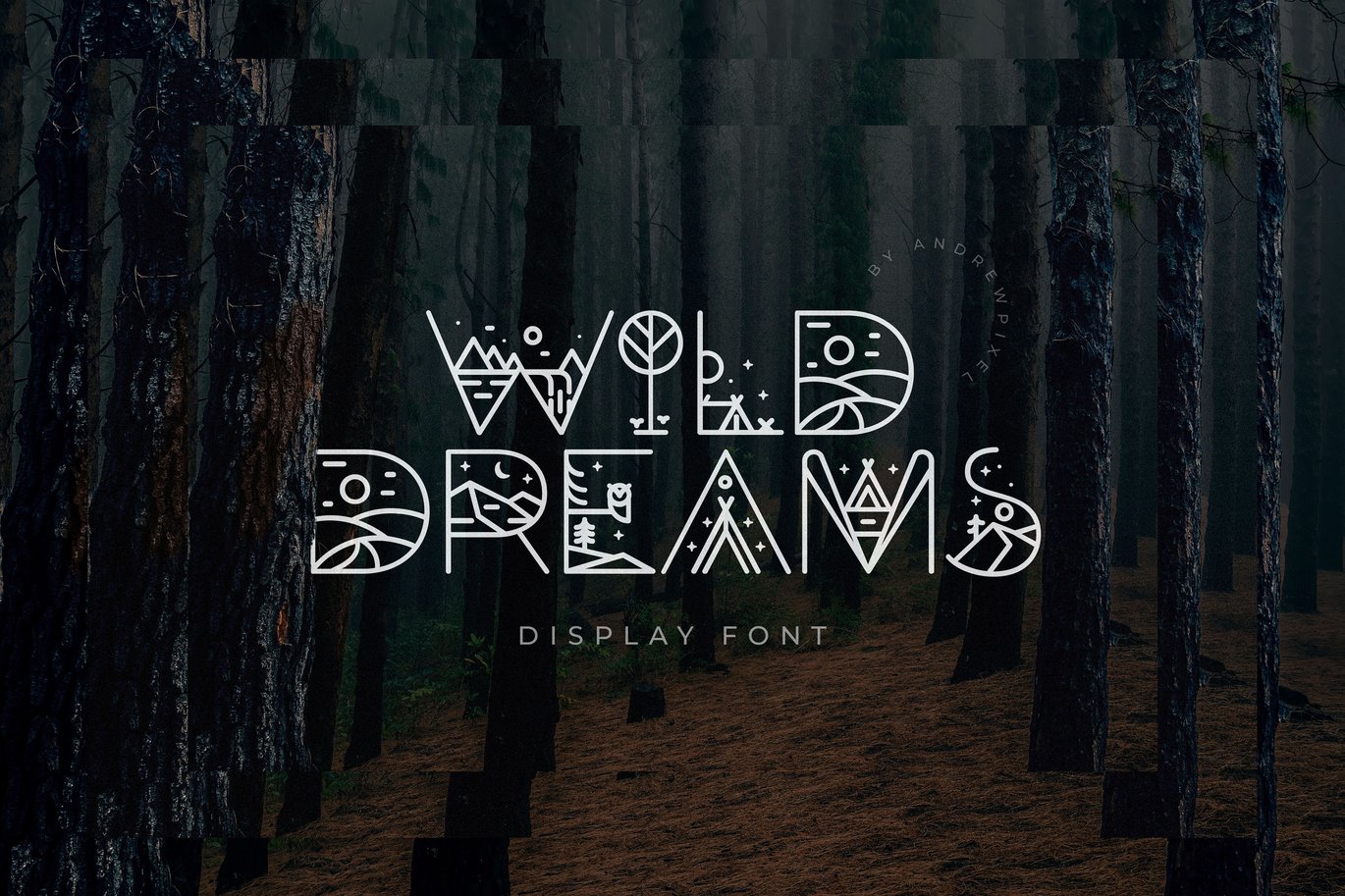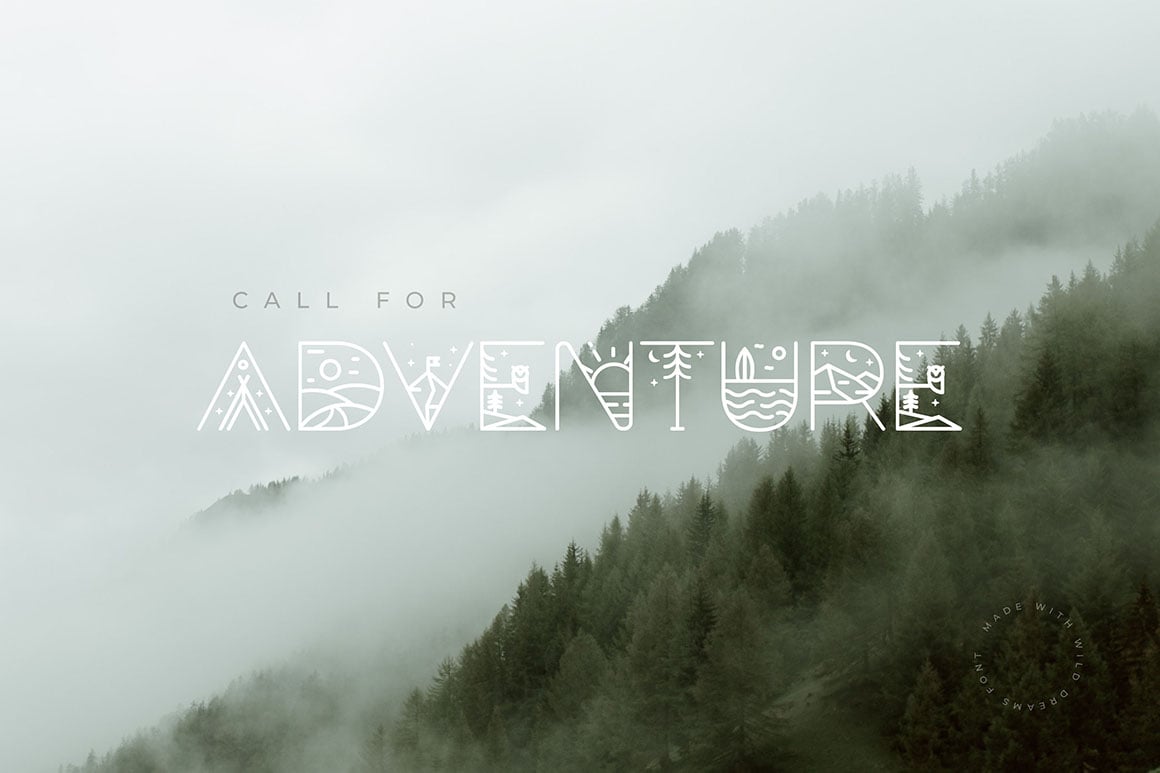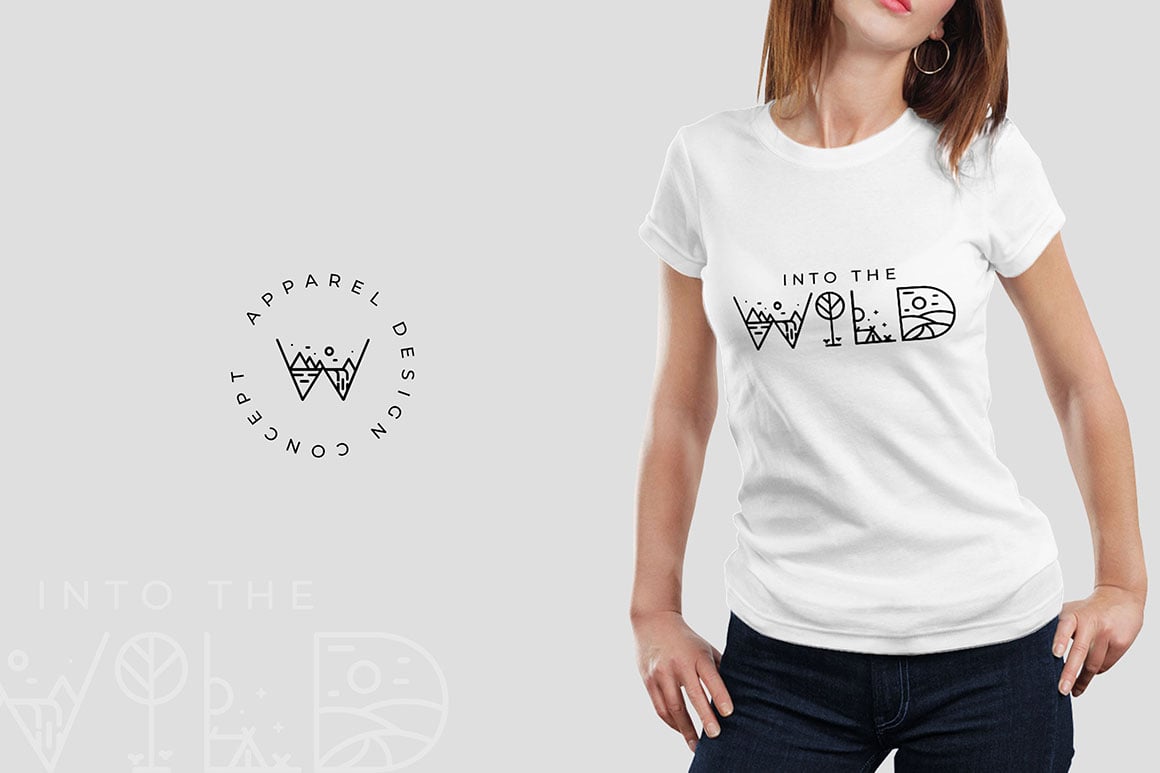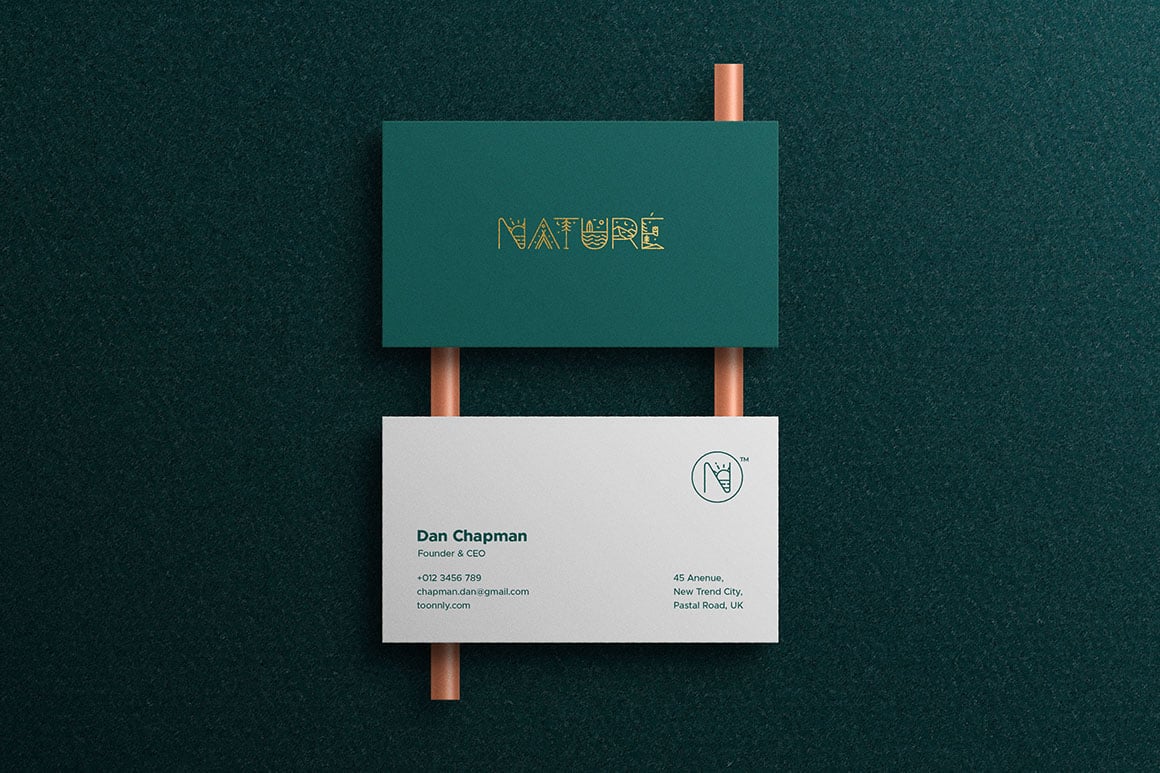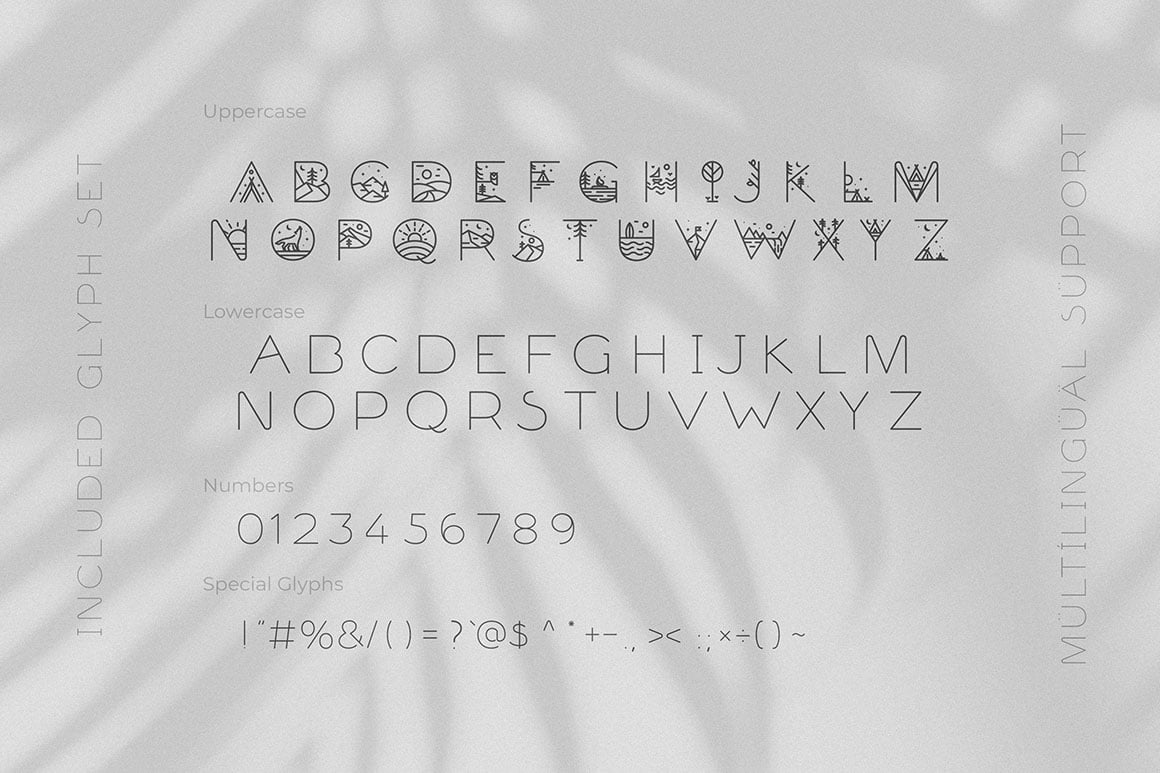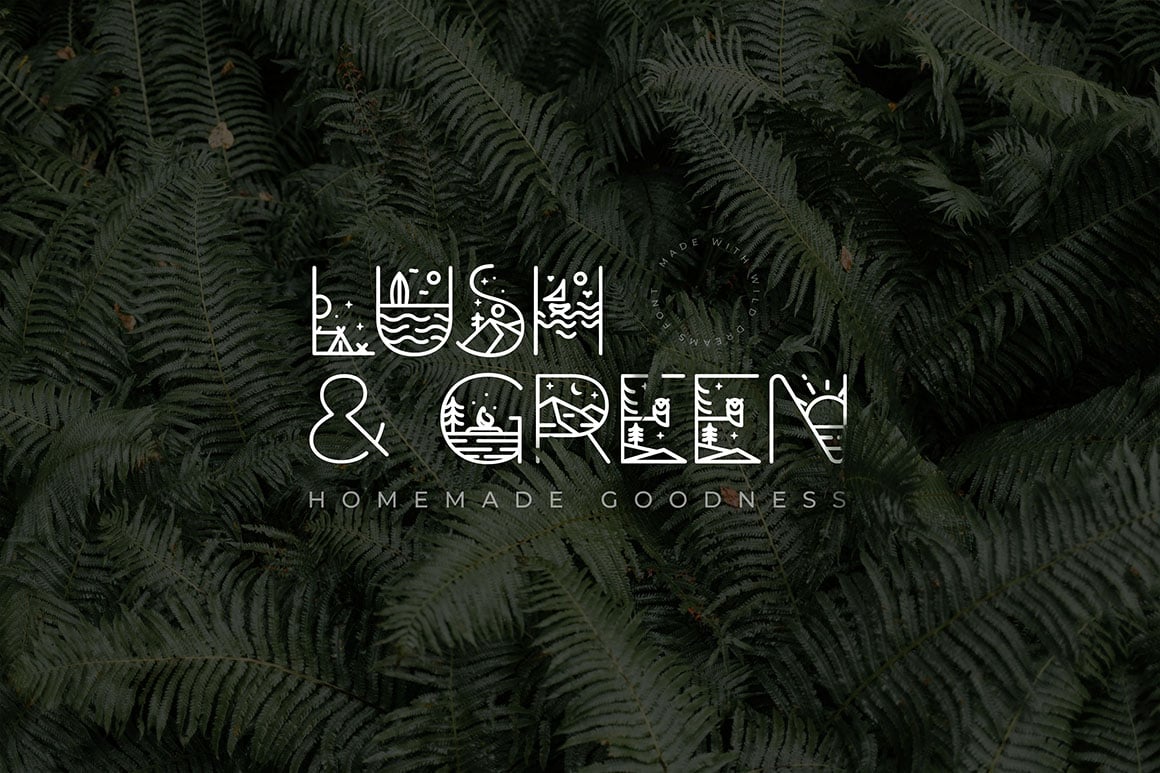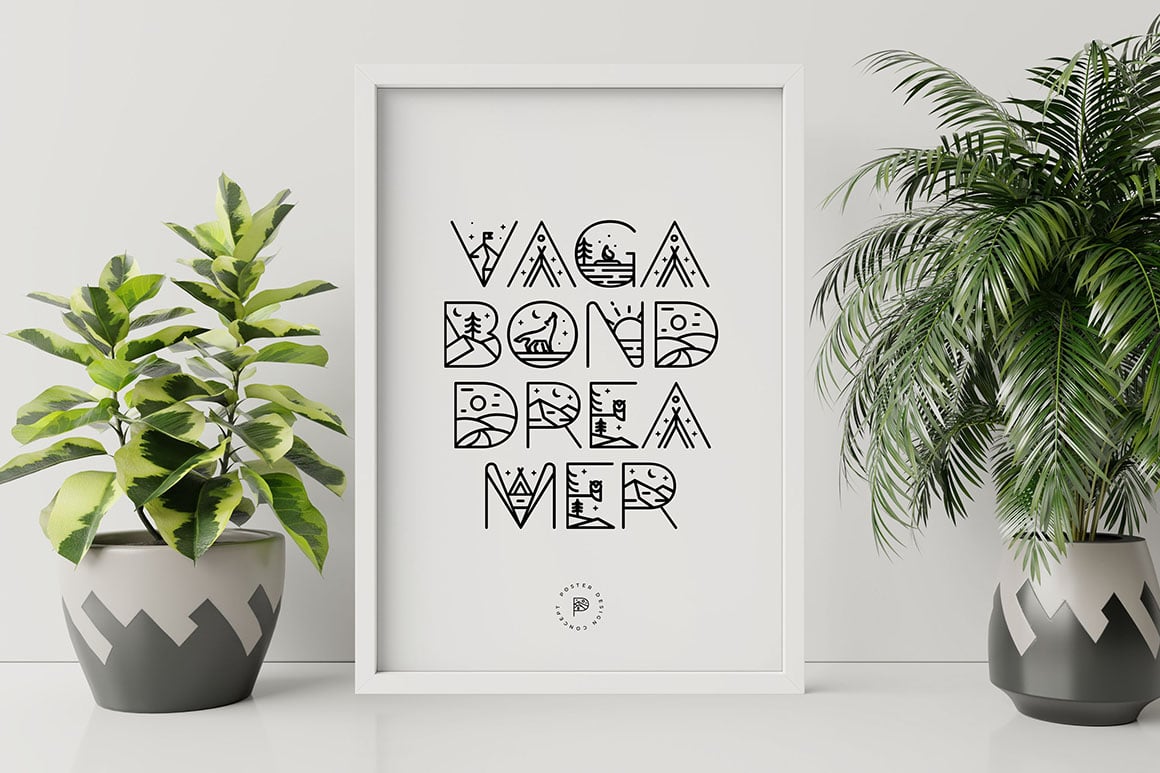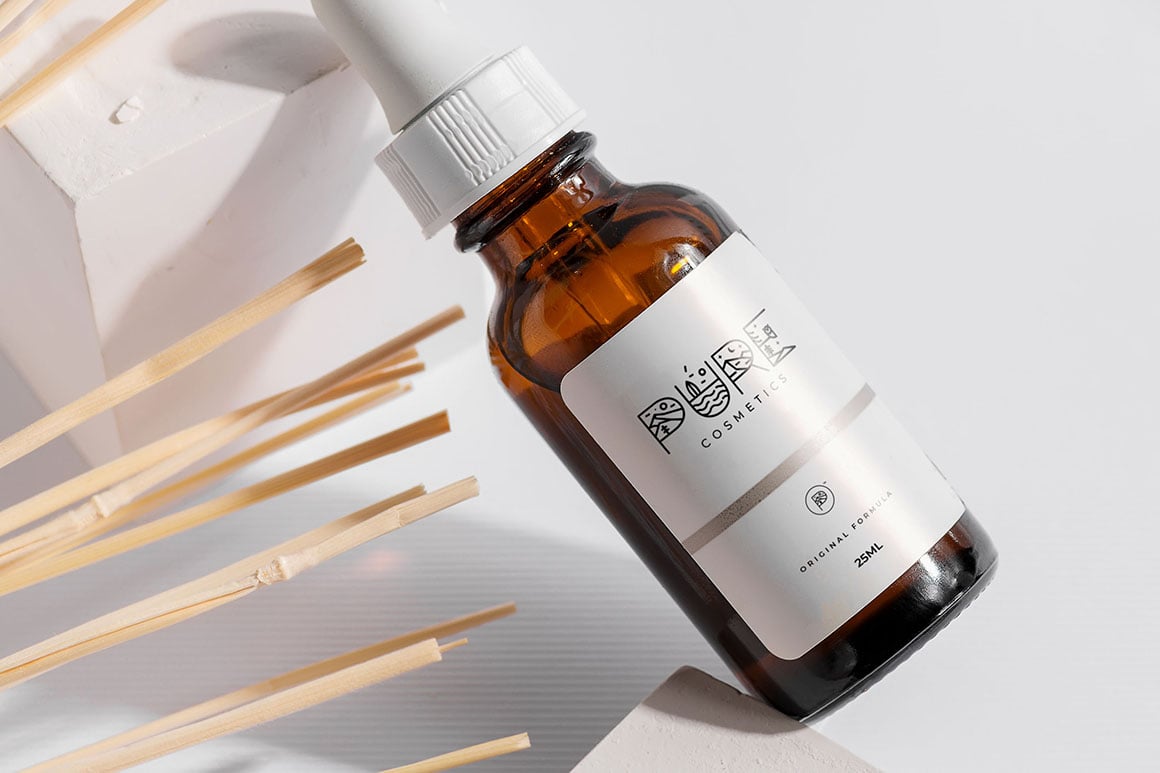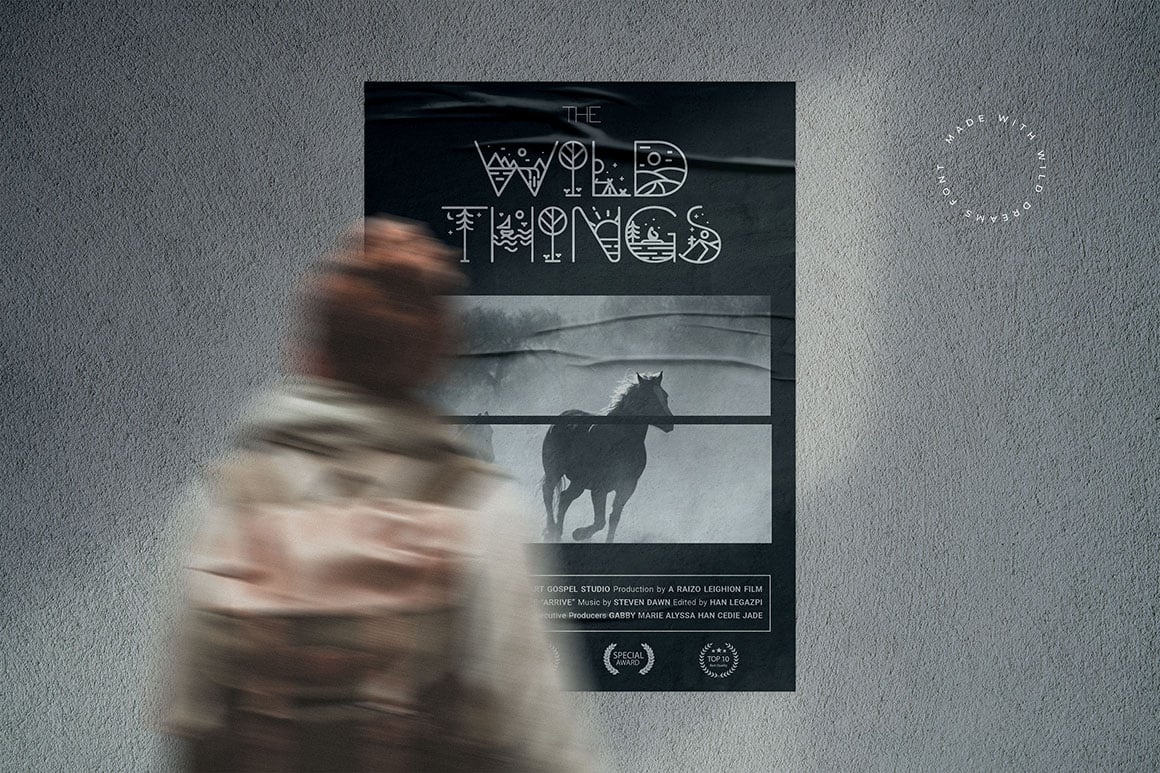
Wild Dreams Display Font
Introducing a Wild and Unique Display font with minimal lineart illustrations.
This font is meant to be used for headlines, titles, logos, posters, flyers, etc – anything that requires a unique geometric typeface with a flare of adventure.
The font has uppercase and lowercase characters, special glyphs and multilingual support.